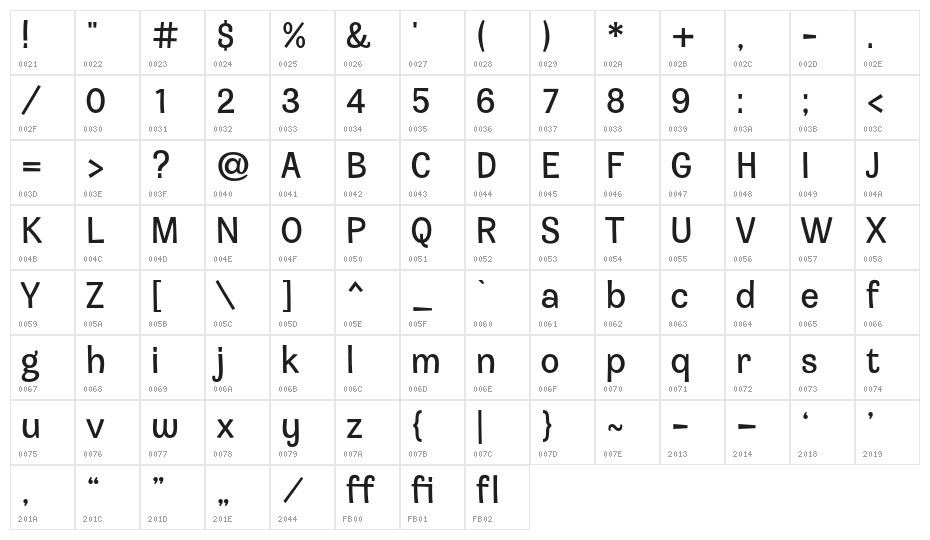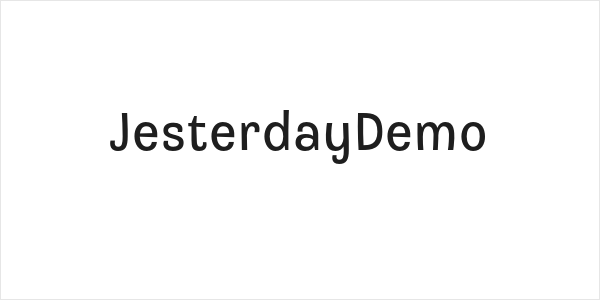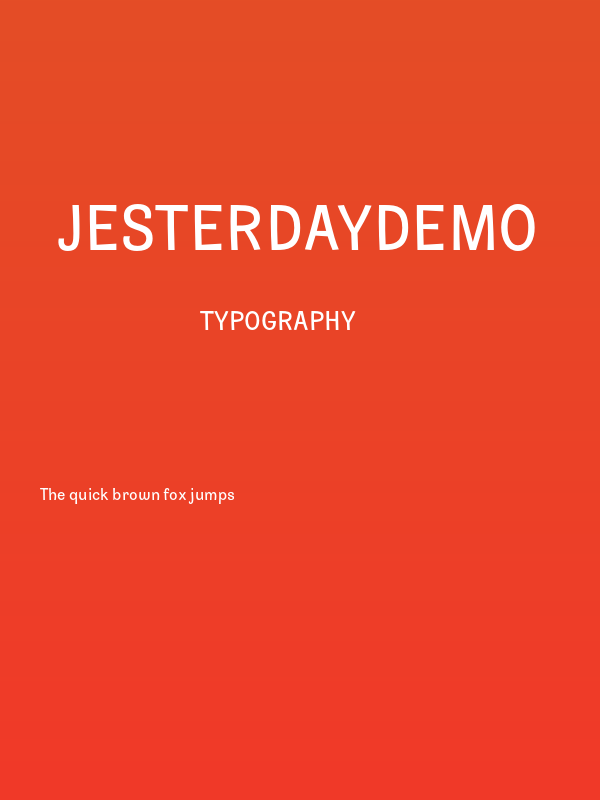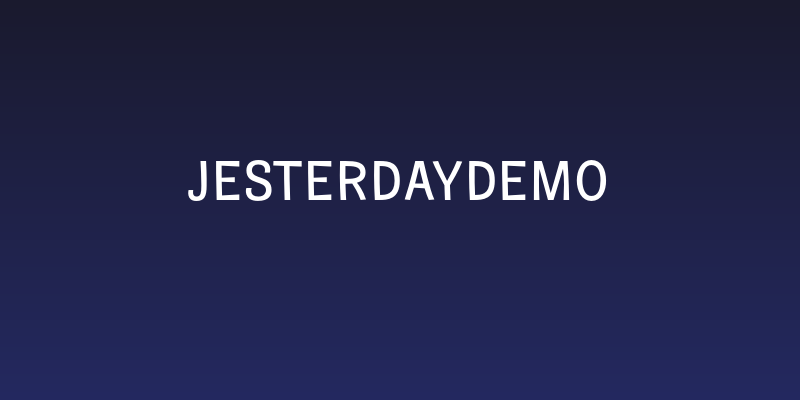
JesterdayDemo Font
JesterdayDemo Description
This font features a clean and modern sans-serif style with a slightly playful touch. The characters are well-proportioned, offering a balanced and approachable appearance. Uppercase letters are bold and assertive, while lowercase letters maintain a friendly and inviting look. The numerals are clear and easy to read, making them suitable for various applications. Special characters are distinct and well-integrated, ensuring versatility in design projects. The overall design is straightforward yet stylish, making it suitable for both professional and casual contexts.
| Proposed Projects | Ideal for branding, advertising, web design, and print materials where a modern and approachable look is desired. |